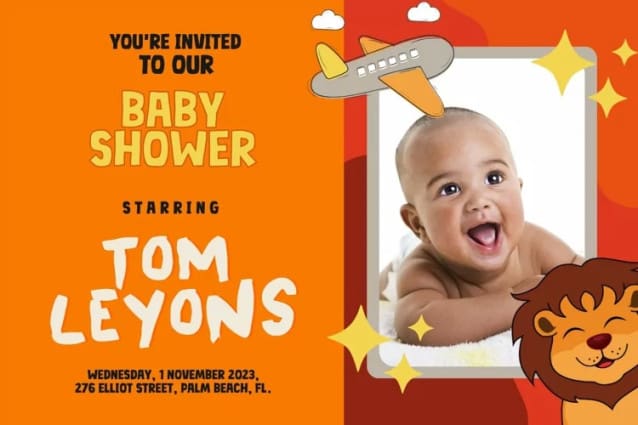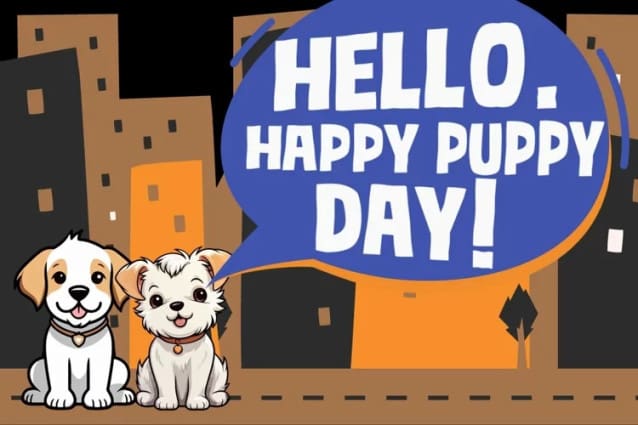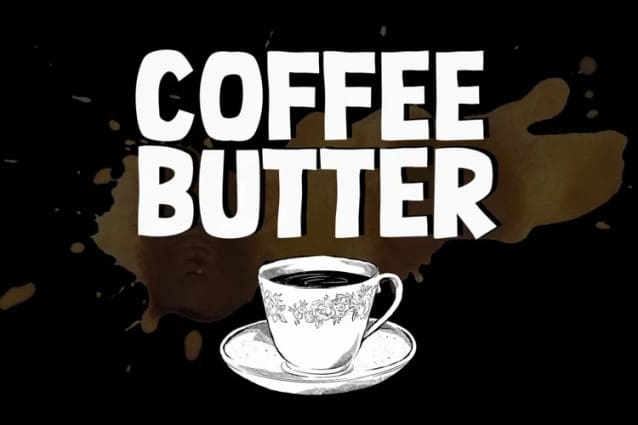
Coffee Butter Font
Coffee Butter Font is a simple, bold, and quirky display font. Use it on your retro-themed projects, banners, social media, invitations, cards and so much more.